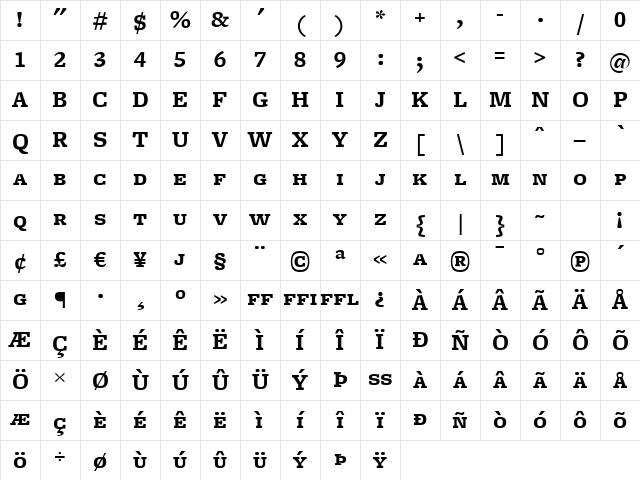
FreightMicro BoldSC
Foundry: Joshua Darden & Phil's Fonts, Inc
Designer: Joshua Darden
Design Context for FreightMicro
FreightMicro is a composed and adaptable typeface that performs quietly and consistently across a wide range of design contexts. Its bold stroke weight gives it real presence on the page.
Who designed the FreightMicro BoldSC font?